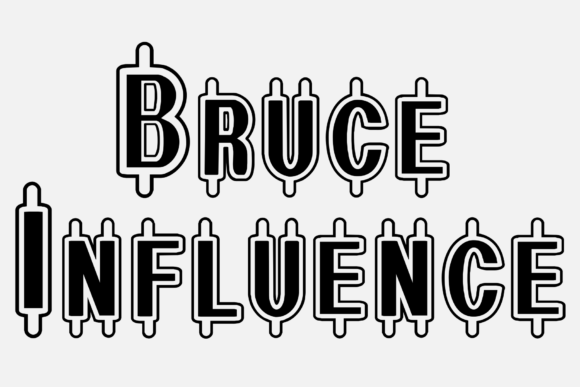
Bruce Influence Font: Unleashing the Victorian Era’s Eccentric Spirit
The world of typography is a vast and wondrous place, filled with a diverse array of fonts that can evoke emotions, convey messages, and add aesthetic appeal to any design project. Among the numerous typefaces that have made a lasting impact on the field of typography is the Great Primer Ornamented No. 30 font, a stunning example of Victorian-era inventiveness. This font, in particular, has inspired the creation of the Bruce Influence Font, a modern take on the classic design that embodies the adventurous spirit of its predecessor.
The Origins of Great Primer Ornamented No. 30
The Great Primer Ornamented No. 30 font owes its existence to the iconic 1869 Bruce’s TypeFoundry catalog, a treasure trove of innovative and eccentric typefaces. During the Victorian era, the art of typeface creation was pushing beyond the boundaries of conventional design, embracing a bold fusion of the unusual and the grotesque. The Great Primer Ornamented No. 30 font, with its distinctive ornamentation and singular aesthetics, is a testament to this era of unbridled creativity.
This font, in particular, showcases the extraordinary imaginative finesse that characterized the Victorian approach to typography. Its intricate details, ornate flourishes, and bold lines evoke a sense of grandeur and opulence, transporting users to a bygone era of elegance and refinement. The Great Primer Ornamented No. 30 font is a masterclass in Victorian inventiveness, with its daring blend of peculiar and grotesque elements.
Introducing the Bruce Influence Font
Inspired by the Great Primer Ornamented No. 30 font, the Bruce Influence Font is a modern interpretation of this classic design. This font embodies the same adventurous spirit and eccentric aesthetics that made its predecessor so remarkable. With its bold lines, intricate details, and ornate flourishes, the Bruce Influence Font is poised to add a touch of Victorian elegance to any design project.
The Bruce Influence Font is more than just a nostalgic nod to the past; it is a bold statement of modernity and creativity. By embracing the unconventional spirit of the Great Primer Ornamented No. 30 font, this contemporary typeface offers designers a unique opportunity to push the boundaries of typography and create something truly extraordinary.
The Significance of Victorian-Era Typography
The Victorian era was a transformative period in the history of typography, marked by a willingness to experiment and innovate. This era saw the creation of numerous iconic typefaces, each with its own distinct character and personality. The Great Primer Ornamented No. 30 font, in particular, stands out as a testament to the era’s emphasis on creativity and imagination.
During this time, typographers and designers were driven to explore new and unconventional design solutions, often combining disparate elements to create something entirely novel. This approach not only yielded a range of innovative typefaces but also paved the way for future generations of designers to build upon and push the boundaries of typographic design.
Unlocking the Potential of the Bruce Influence Font
For designers looking to incorporate the Bruce Influence Font into their projects, there are several key considerations to keep in mind. Firstly, it’s essential to understand the font’s unique character and personality, including its intricate details and ornate flourishes.
When used judiciously, the Bruce Influence Font can add a touch of elegance and sophistication to a wide range of design projects, from luxury branding and packaging to editorial design and digital interfaces. To unlock the font’s full potential, designers should experiment with different typography combinations, colors, and textures, allowing the font’s distinctive character to shine through.
Some design tips to keep in mind when working with the Bruce Influence Font include:
- Use the font sparingly to create visual interest and add emphasis to key design elements.
- Experiment with different font sizes and combinations to create visual hierarchy and contrast.
- Pay attention to the font’s intricate details and ornate flourishes, using them to add texture and depth to your design.
Embracing the Adventurous Spirit of Victorian Typography
The Bruce Influence Font is more than just a typeface – it’s a gateway to a world of creative possibility and typographic innovation. By embracing the adventurous spirit of the Great Primer Ornamented No. 30 font and the Victorian era, designers can tap into a rich tradition of experimentation and imagination.
Whether used in a bold and daring way or in a more subtle and nuanced manner, the Bruce Influence Font is poised to inspire a new generation of designers to push the boundaries of typography and create something truly extraordinary. So why not step into the extraordinary world of Victorian inventiveness and discover the charm of this incredible font for yourself?